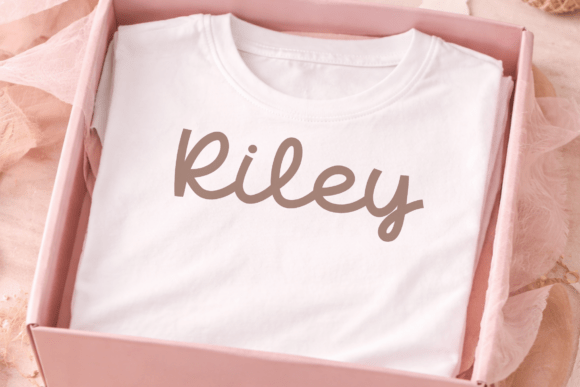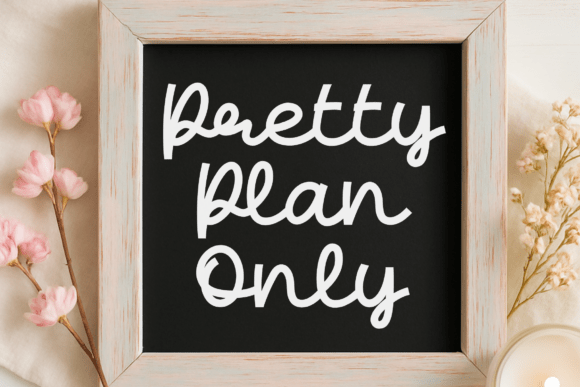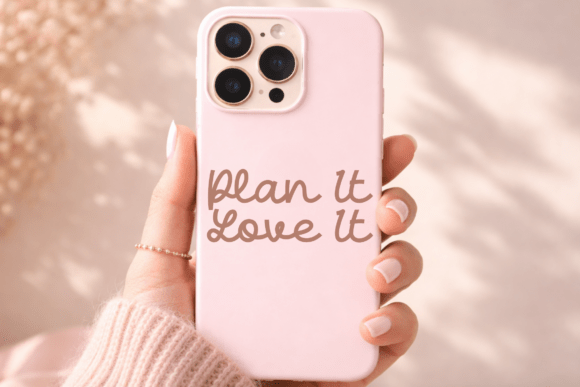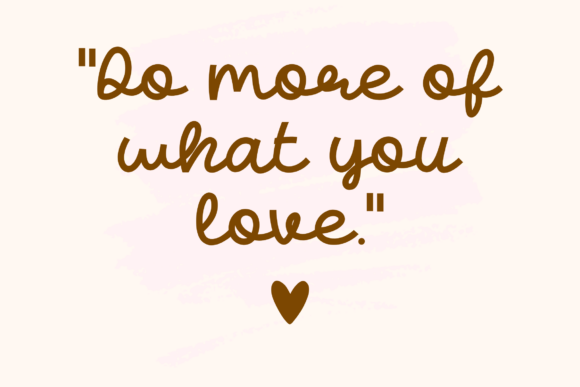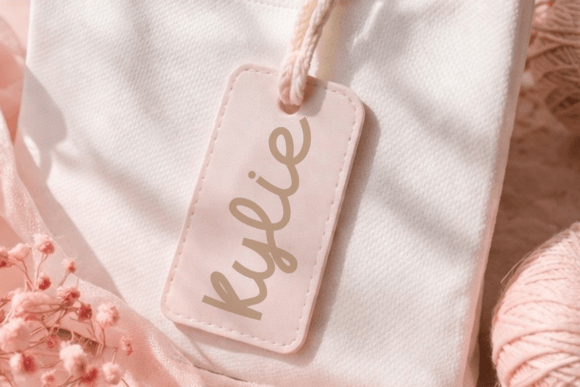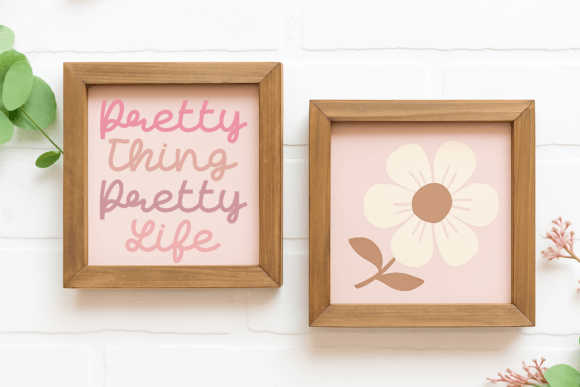
Cotton Kiss Font: The Soft and Delicate Handwritten Script Font for Your Designs
Are you looking for a font that can add a warm, cozy, and gentle feeling to your designs? Look no further than Cotton Kiss, a soft and delicate handwritten script font that is perfect for feminine branding, lifestyle content, and aesthetic designs. With its smooth curves and airy strokes, this font creates a natural and effortless look that feels both modern and comforting.
The Characteristics of Cotton Kiss Font
Cotton Kiss is a handwritten script font that is designed to bring a touch of elegance and sophistication to your designs. Its soft and delicate strokes are perfect for creating a warm and inviting atmosphere, making it ideal for designs that require a personal and feminine touch. The font’s smooth curves and airy strokes give it a natural and effortless look that feels both modern and comforting.
One of the key characteristics of Cotton Kiss is its subtle charm. This font is elegant without being overpowering, making it perfect for designs that require a touch of sophistication without overwhelming the viewer. Whether you’re designing a logo, a brochure, or a social media post, Cotton Kiss is the perfect font to add a touch of warmth and personality to your design.
Uses of Cotton Kiss Font
Cotton Kiss is a versatile font that can be used in a variety of design applications. Here are some of the most popular uses of this beautiful font:
- Feminine Branding: Cotton Kiss is perfect for feminine branding, including logos, packaging, and marketing materials. Its soft and delicate strokes create a warm and inviting atmosphere that is perfect for brands that cater to women.
- Lifestyle Content: This font is also great for lifestyle content, including blog posts, social media posts, and magazines. Its natural and effortless look makes it perfect for creating content that feels personal and relatable.
- Aesthetic Designs: Cotton Kiss is also perfect for aesthetic designs, including posters, flyers, and brochures. Its elegant and sophisticated look makes it perfect for creating designs that are visually appealing and effective.
Benefits of Using Cotton Kiss Font
There are many benefits to using Cotton Kiss in your designs. Here are some of the most significant advantages of this beautiful font:
- Unique and Creative: Cotton Kiss is a unique and creative font that can help you stand out from the crowd. Its soft and delicate strokes create a warm and inviting atmosphere that is perfect for designs that require a personal touch.
- Elegant and Sophisticated: This font is elegant and sophisticated, making it perfect for designs that require a touch of luxury and sophistication.
- Easy to Read: Cotton Kiss is easy to read, even at small sizes. This makes it perfect for designs that require a lot of text, such as brochures and magazines.
- Versatile: This font is versatile and can be used in a variety of design applications, from logos and branding to lifestyle content and aesthetic designs.
Tips for Using Cotton Kiss Font
Here are some tips for using Cotton Kiss in your designs:
- Use it with a Simple Background: Cotton Kiss looks best with a simple background that doesn’t compete with the font. Use a plain background to make the font stand out.
- Experiment with Colors: This font looks great in a variety of colors, from soft pastels to bold brights. Experiment with different colors to find the one that works best for your design.
- Pair it with a Bold Font: Cotton Kiss looks great when paired with a bold font. Use a bold font to create contrast and make the text stand out.
| Font Name | Cotton Kiss Font |
Cotton Kiss is a beautiful and versatile font that is perfect for designers and crafters who want to add a touch of warmth and personality to their designs. With its soft and delicate strokes, this font creates a natural and effortless look that feels both modern and comforting. Whether you’re designing a logo, a brochure, or a social media post, Cotton Kiss is the perfect font to add a touch of elegance and sophistication to your design.